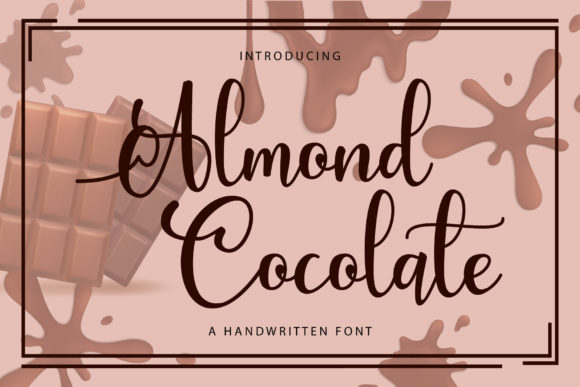
In a world where creativity blooms and elegance reigns, allow us to introduce you to Almond Cocolate, a script font family that will captivate your senses and ignite your imagination. Crafted with the utmost precision by the visionary artist ajaib saja, Almond Cocolate is more than just a font; it's an artistic masterpiece that will transform your designs into captivating works of art.
Imagine your wedding album, a cherished heirloom that preserves the memories of your special day. With Almond Cocolate as your font of choice, the cover of your album becomes a canvas of exquisite beauty. The flowing lines of the script, reminiscent of a gentle breeze caressing the petals of a rose, will transport you back to the day when love bloomed in full glory. Each letter, meticulously handwritten, exudes a timeless charm that will keep your memories alive for generations to come.
But Almond Cocolate's allure extends beyond wedding albums. Its versatility knows no bounds. Let your creativity flourish as you explore the endless possibilities this font family has to offer. Whether you're designing an invitation card for a special occasion or creating a logo for your budding business, Almond Cocolate will lend its sophistication and elegance to any project.
With Almond Cocolate, you'll discover a symphony of style and grace that will elevate your designs to new heights. Its delicate curves and graceful flourishes will leave an unforgettable impression on all who lay eyes upon it. Whether you're a seasoned designer or just starting to explore the world of typography, Almond Cocolate is the perfect companion for your creative endeavors.
So, embrace the beauty of Almond Cocolate, and embark on a journey of artistic expression. Let your designs blossom with elegance, and watch as your creativity takes flight. Let Almond Cocolate be your guide, leading you to a world of inspiration and endless possibilities.